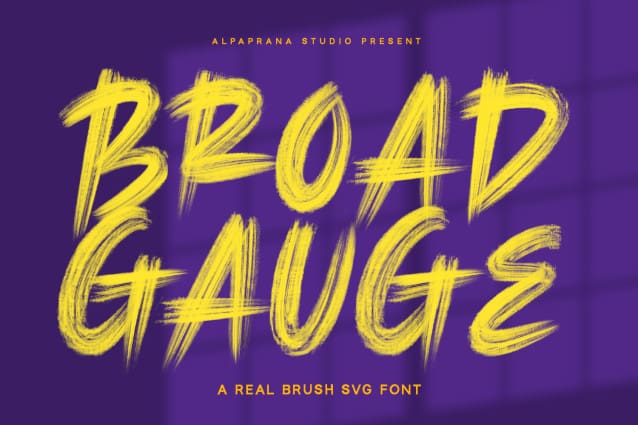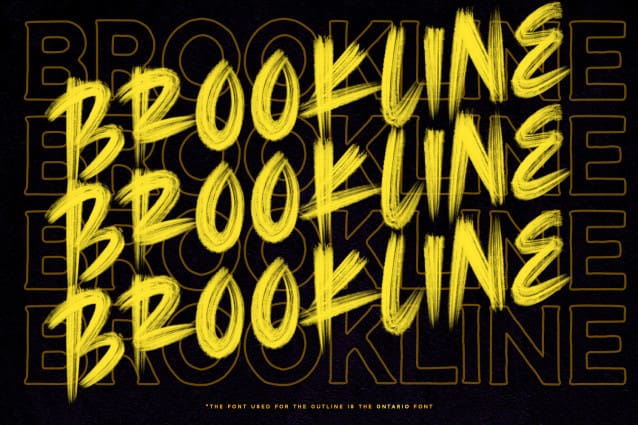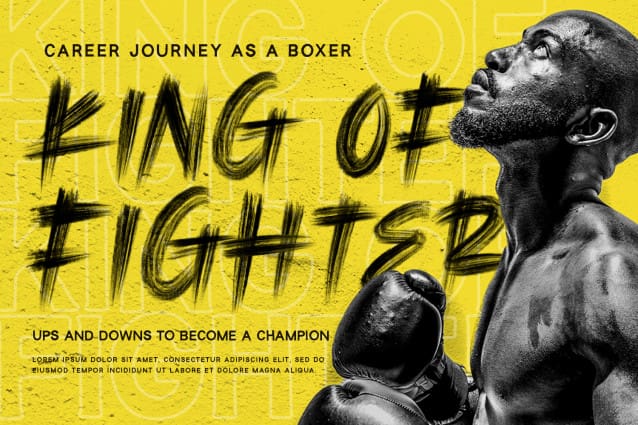
Broad Gauge Font
Broad Gauge Font is a brush script font with unique and modern feels. It will be perfectly used for Branding, Logo Design, Lettering, Logotype, Clothing, Poster, magazine, packaging, posters, shopping bags, t-shirts, book covers, photography, special events and other design project.